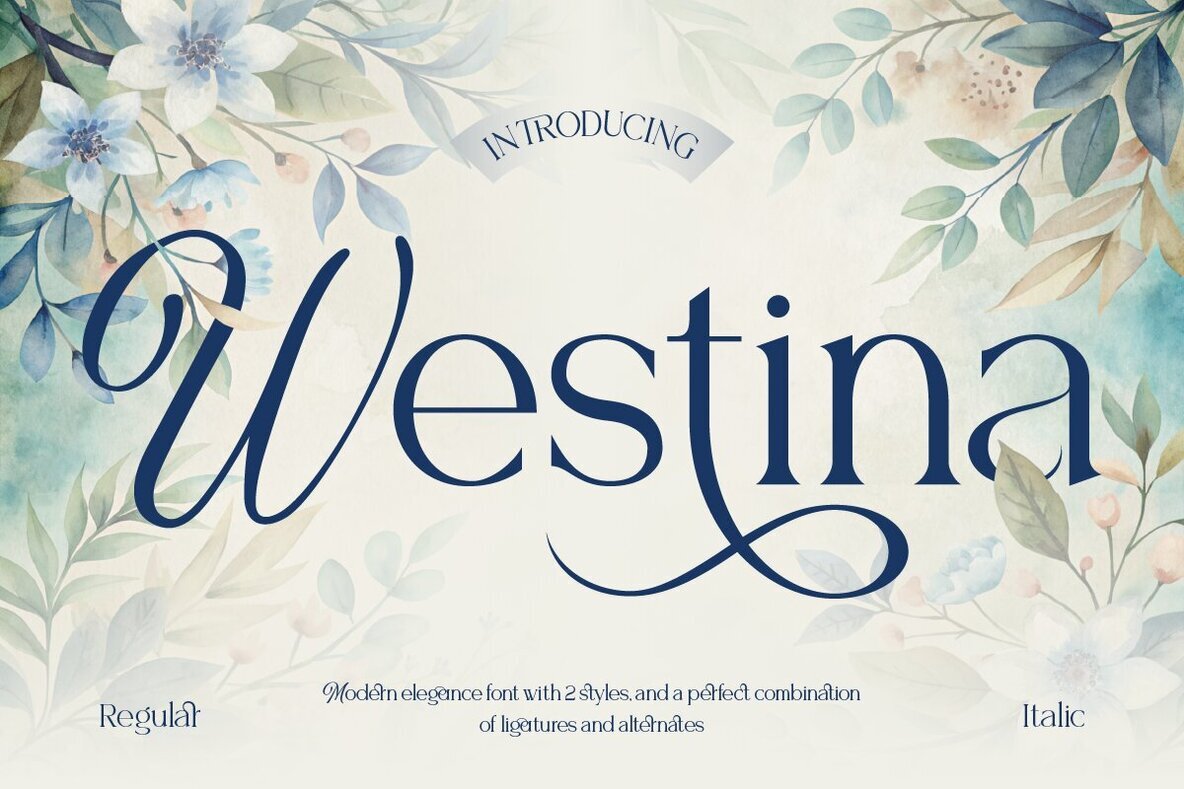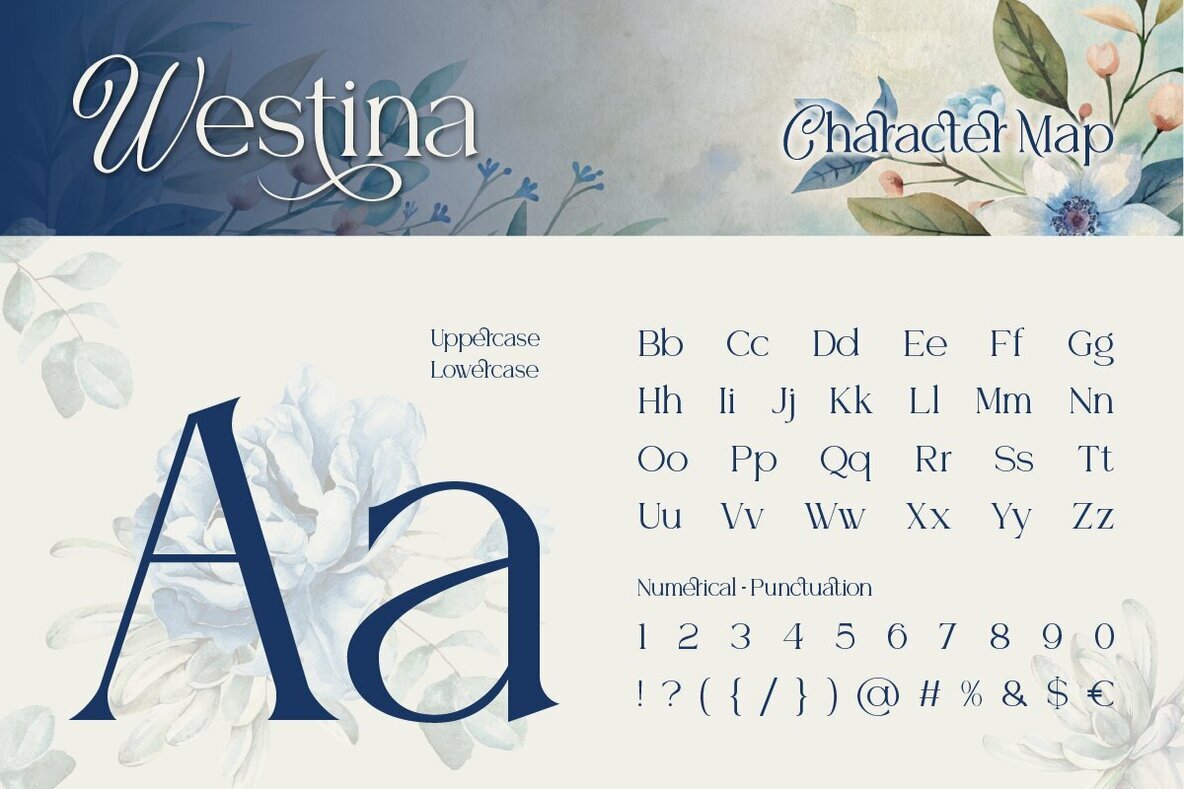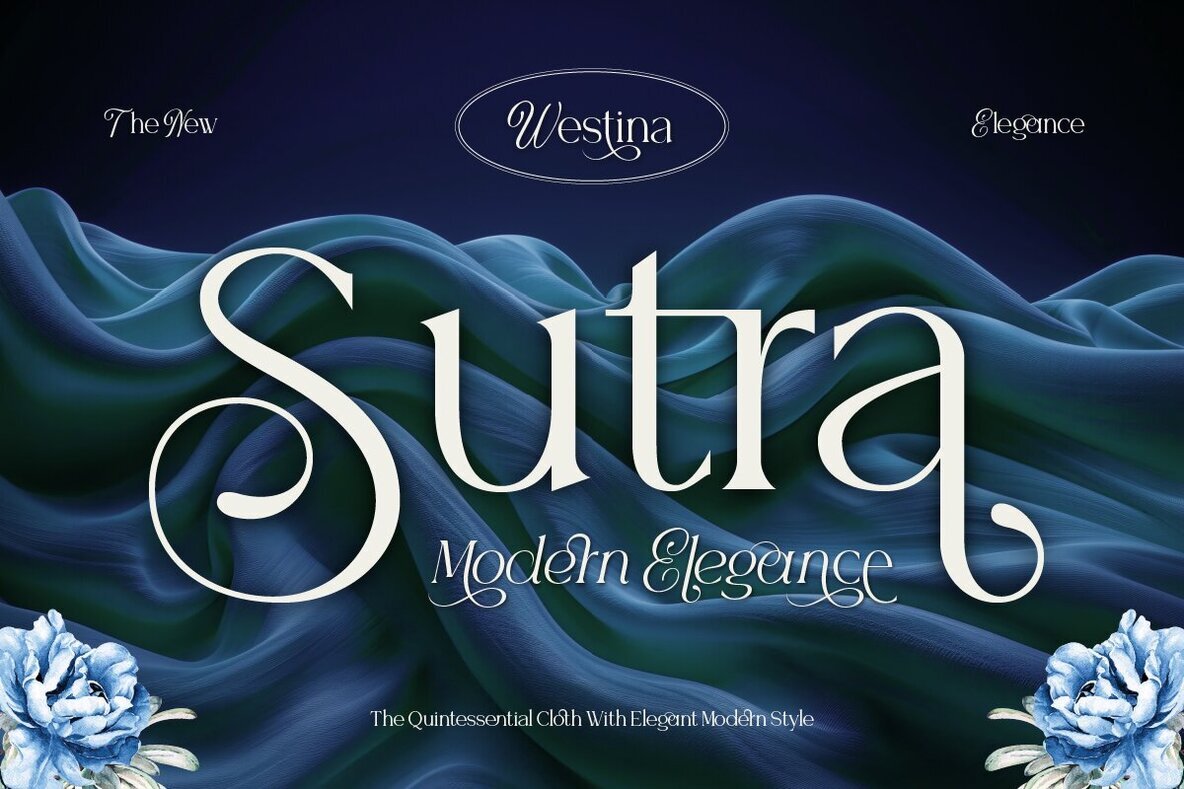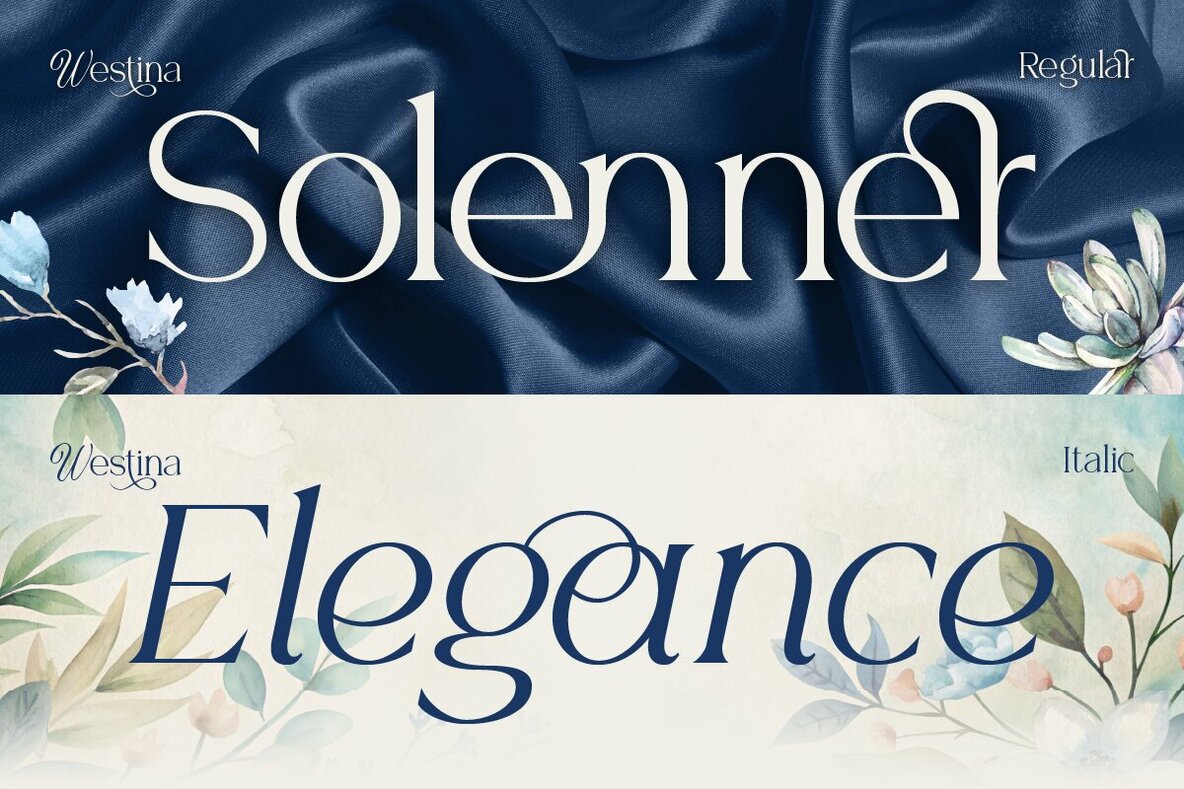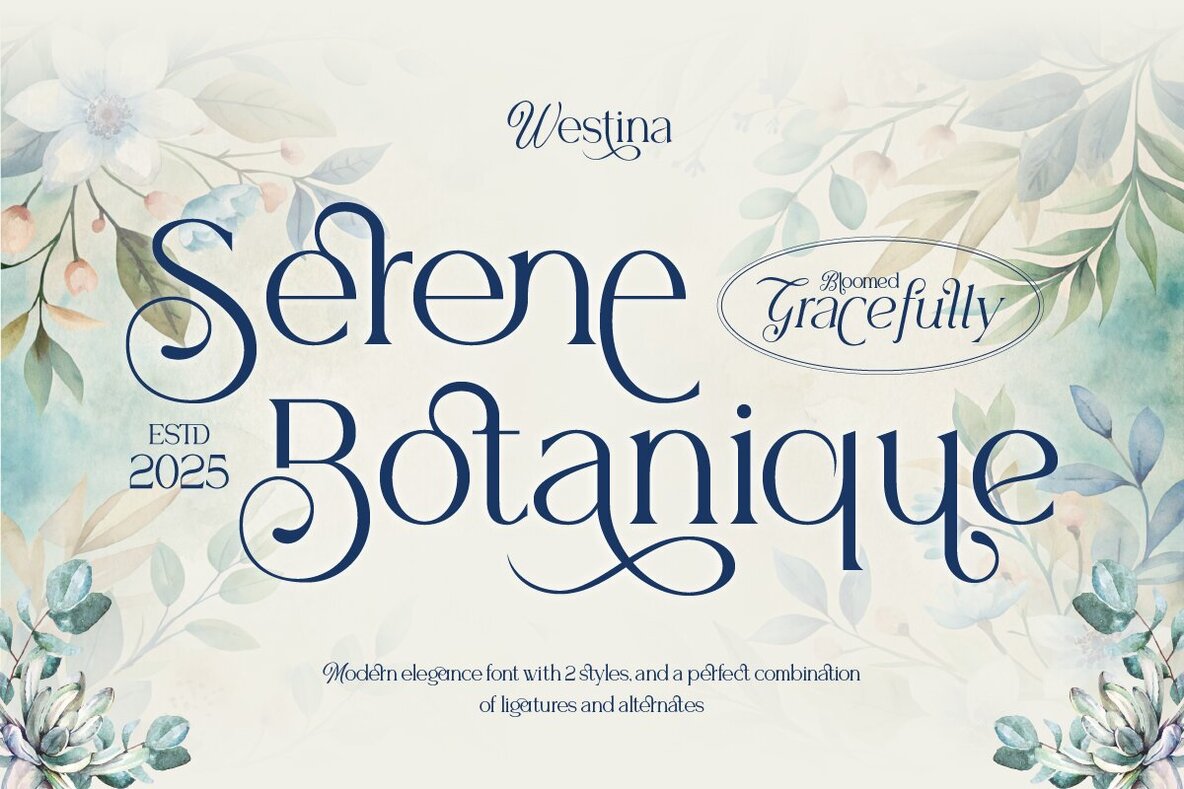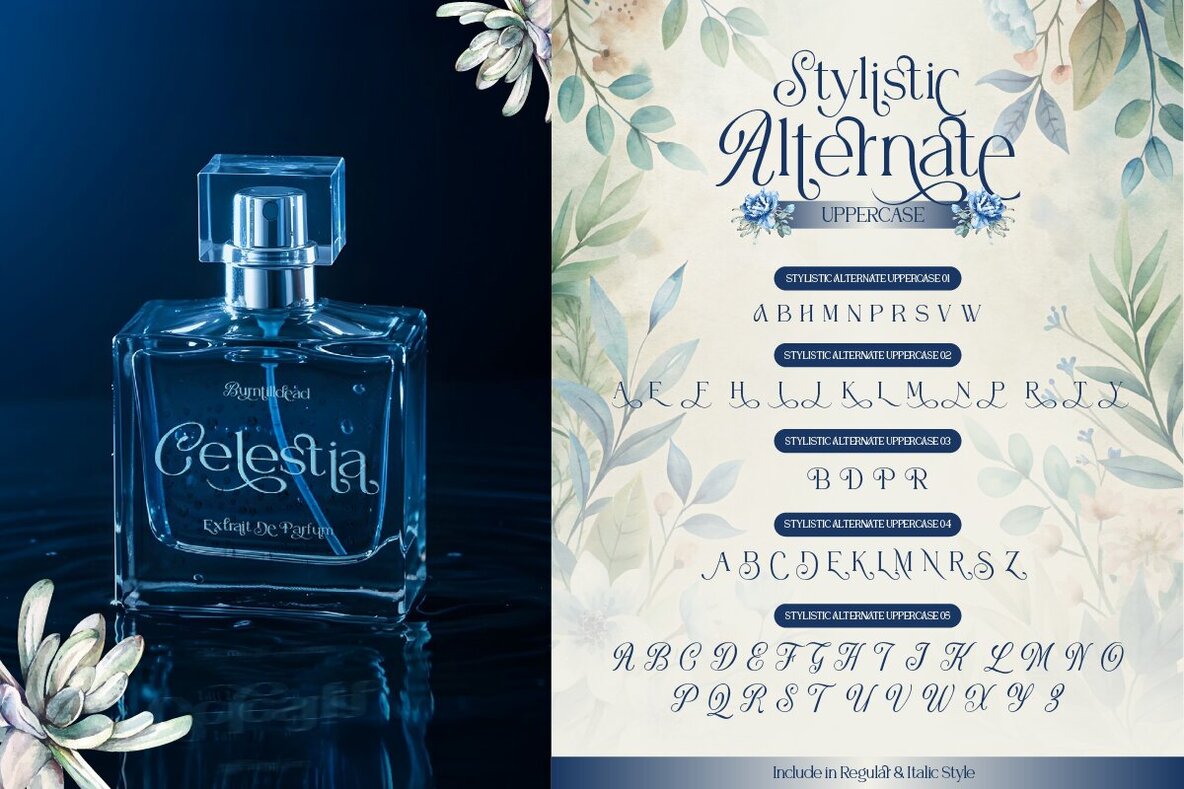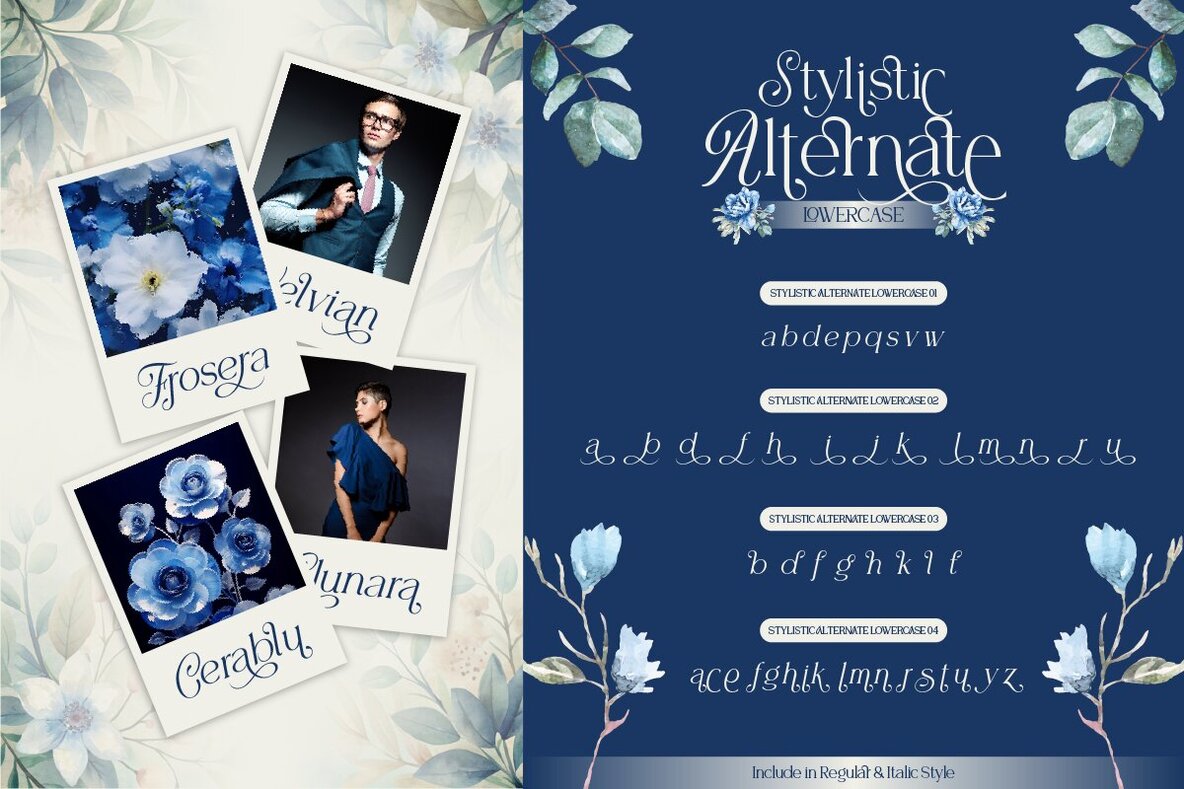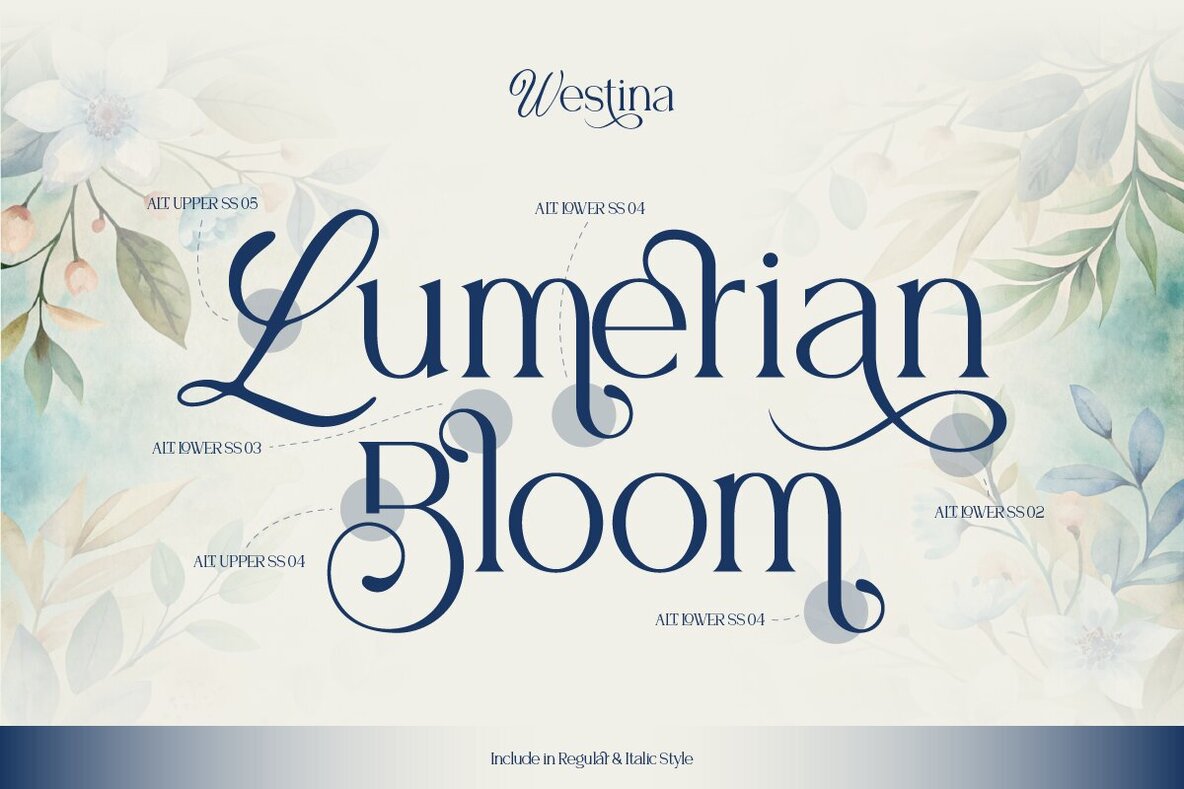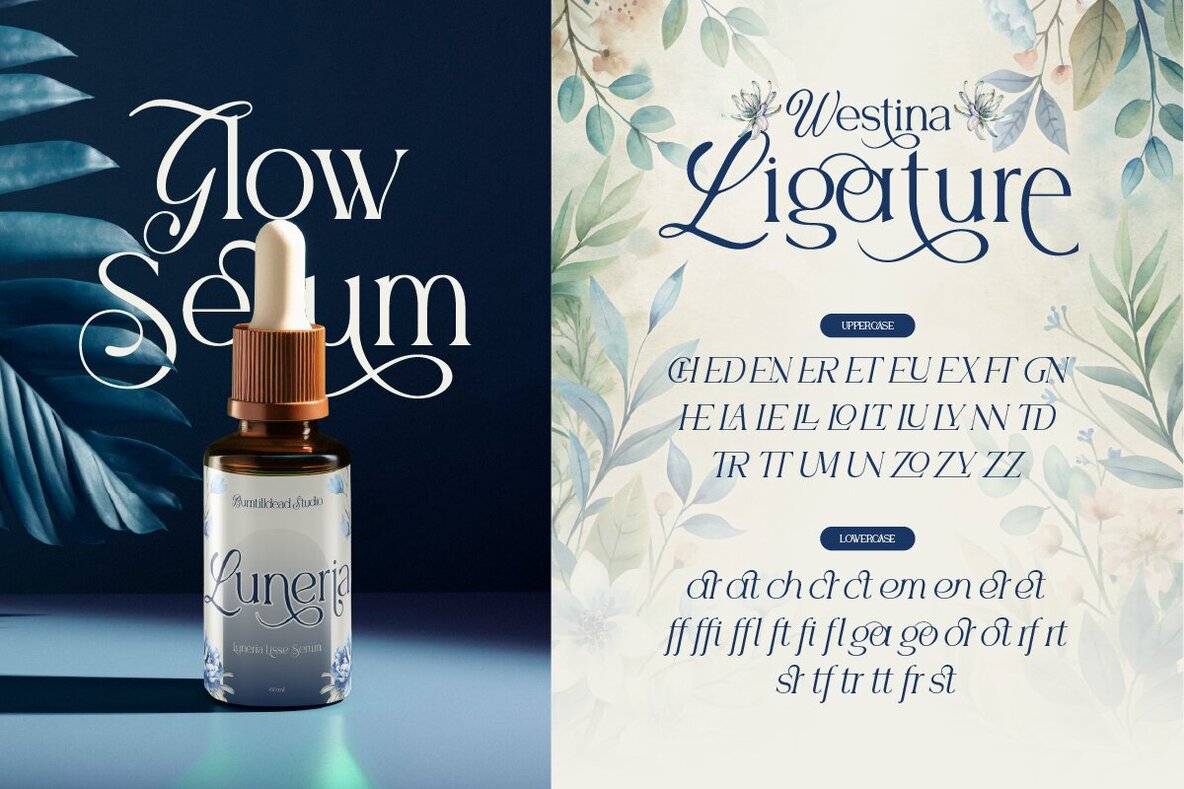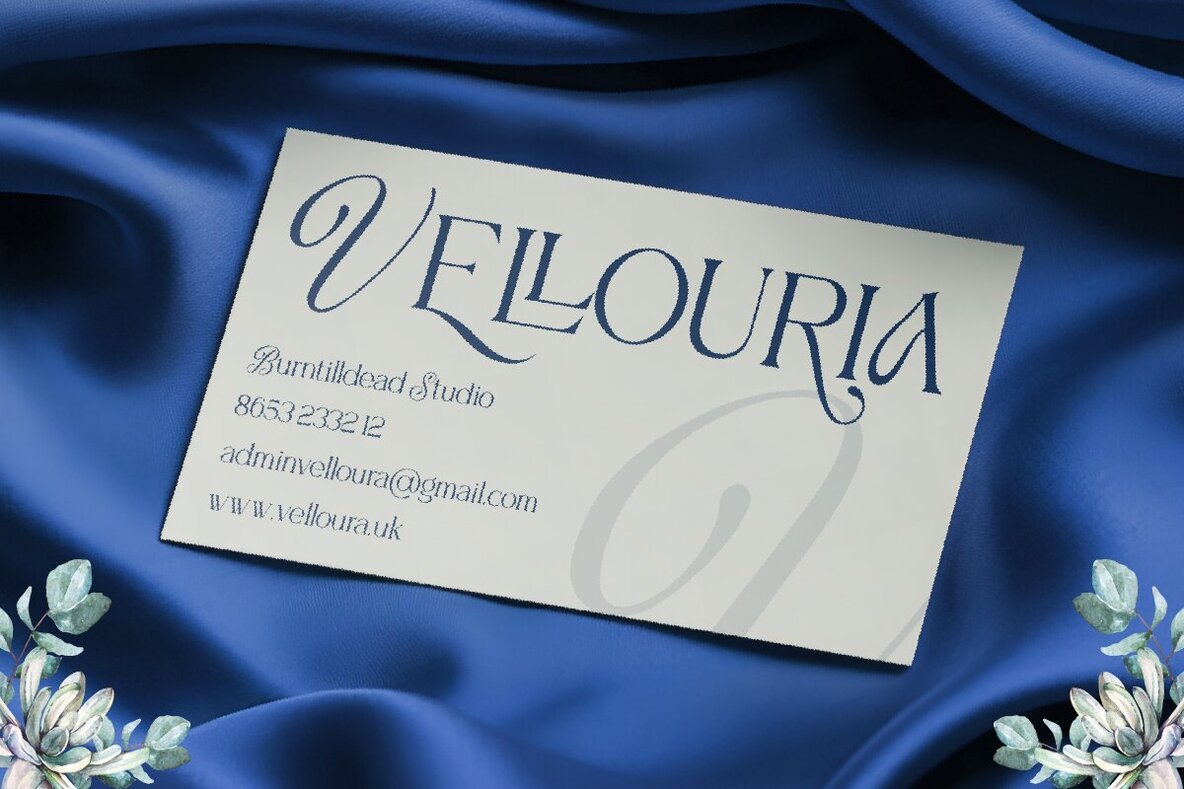
Westina Font
Westina Regular
Westina Italic
Meet Westina, where timeless elegance meets modern flair. This sophisticated serif font offers two distinct styles to enhance your creative projects. The Regular style delivers a clean and polished appearance, ideal for projects requiring a refined and professional touch. Meanwhile, the Italic style flows gracefully, adding dynamic movement to your design. With its ligatures and alternates, Westina empowers you to tailor your creations to be either subtle or striking.Discover Westina: A Classy Serif Font